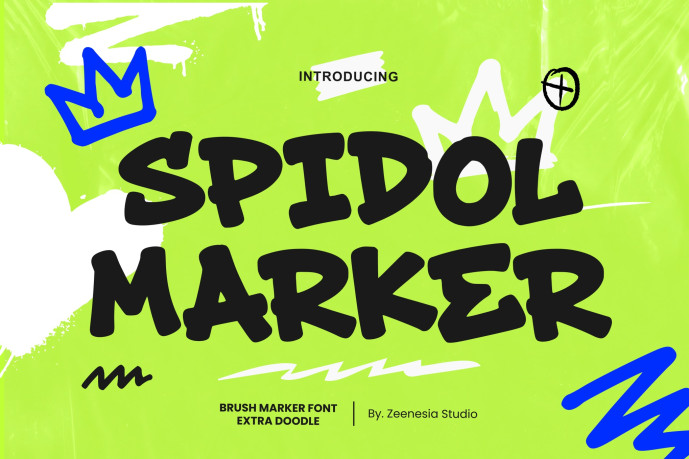
Spidol Marker Font
Designer: zeenesia
SPIDOL MARKER Font is a bold and playful brush marker font inspired by hand-drawn doodles, street art, and creative classroom sketches. Designed with thick strokes, organic curves, and an energetic personality, this font brings a fun and expressive touch to any project. Perfect for posters, branding, packaging, social media graphics, SPIDOL MARKER instantly grabs attention with its strong visual impact. The included extra doodle elements make it even easier to create vibrant and eye-catching designs.